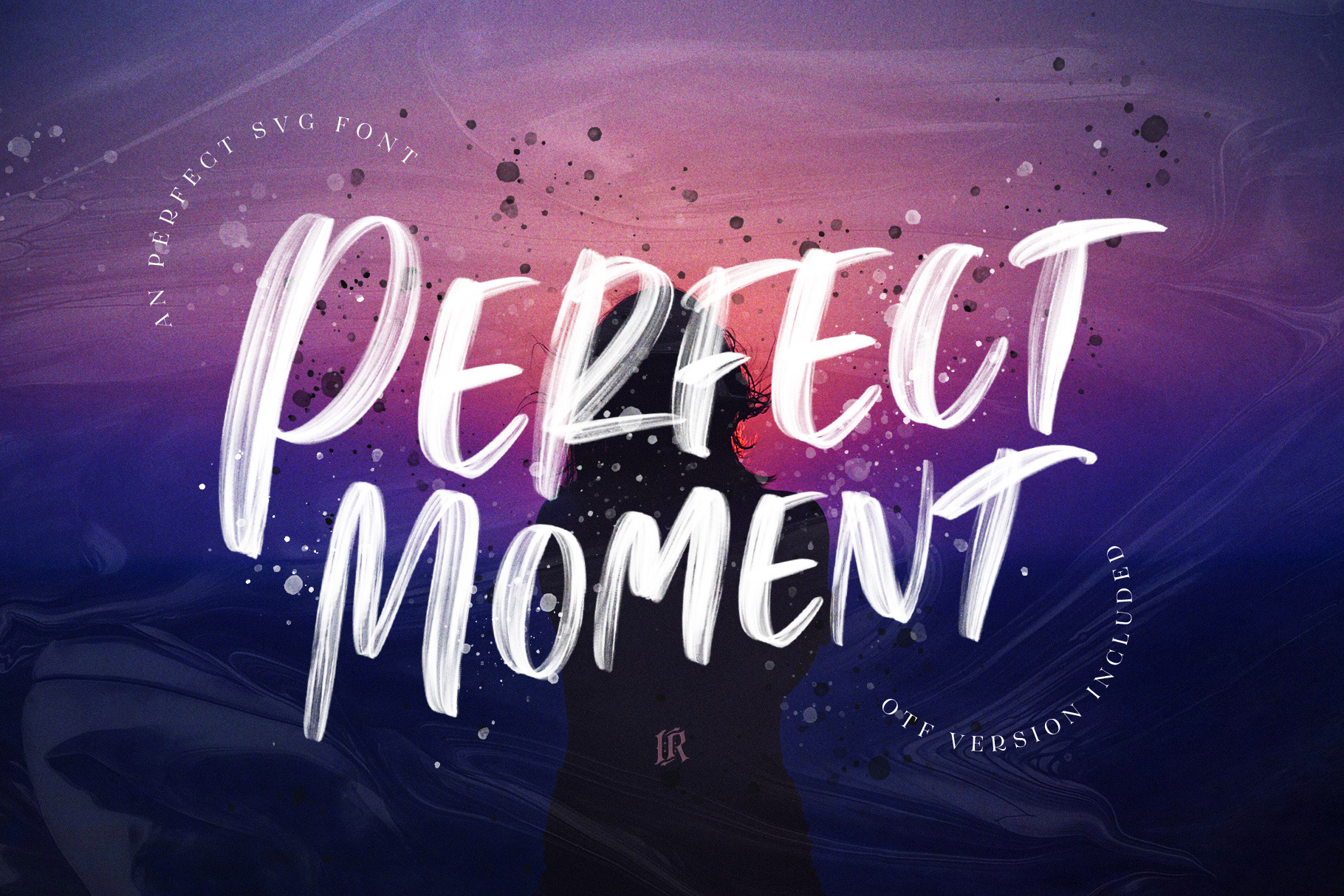
Perfect Moment SVG Font preserves all the high definition detail of the original handwritten letters. Using OpenType-SVG technology it truly looks realistic. The OpenType-SVG format requires Photoshop CC 2017 or Illustrator CC 2018 (or newer). Regular OTF format is also included.
Perfect Moment Open SVG Font A high definition OpenSVG font with detailed texture (You need to be using Photoshop CC 2017.1.1 or later)